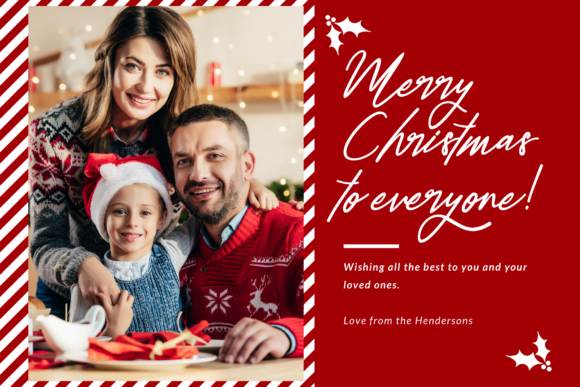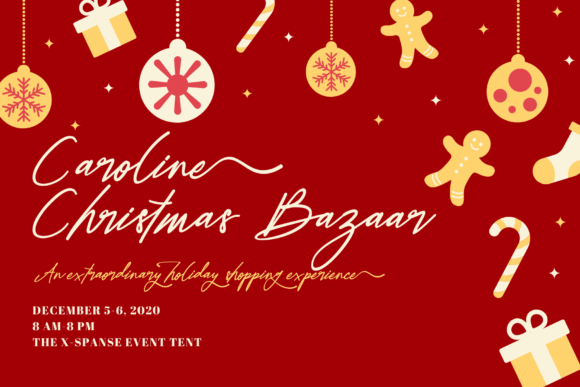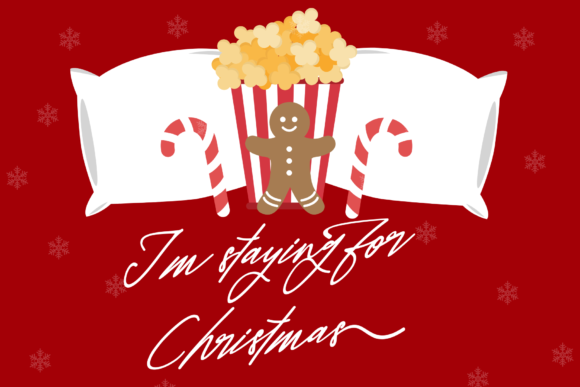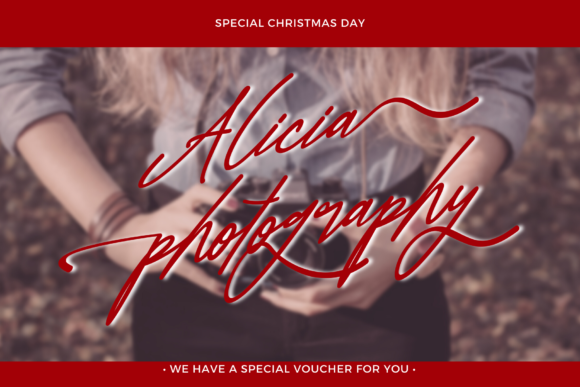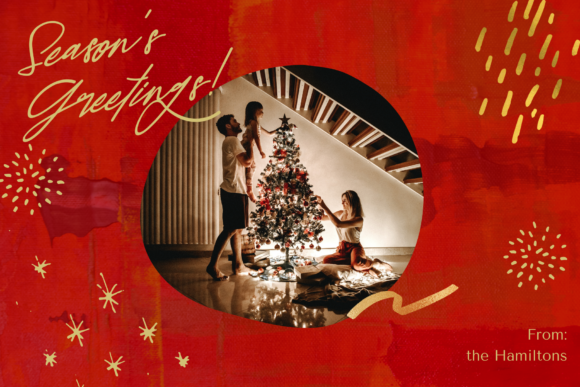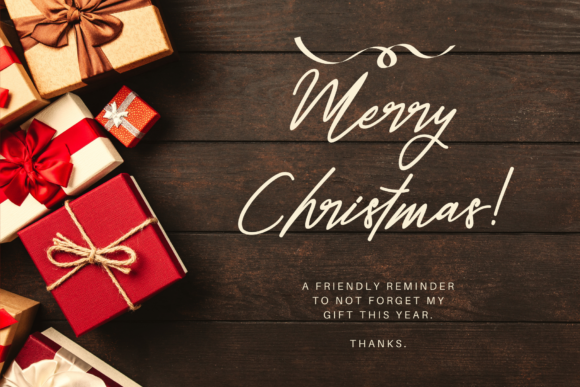
Introducing Christmas Life Font: A Timeless Handwritten Masterpiece
Are you on the hunt for a font that embodies the spirit of the holiday season? Look no further than Christmas Life Font, a dazzling and timeless handwritten font that’s perfect for creating eye-catching logos, branding, and quotes. In this article, we’ll dive into the features and benefits of Christmas Life Font, and explore why it’s a must-have for designers and crafters alike.
A Festive and Versatile Font
Christmas Life Font is a beautifully crafted handwritten font that’s infused with the magic of the holiday season. Its unique and elegant design makes it an excellent choice for a wide range of creative projects, from festive holiday cards and decorations to branding and advertising materials. Whether you’re a designer, crafter, or DIY enthusiast, Christmas Life Font is sure to add a touch of festive flair to your work.
One of the standout features of Christmas Life Font is its PUA (Private Use Area) encoding. This means that you can access all of the glyphs and swashes with ease, giving you unparalleled creative control over your designs. With PUA encoding, you can effortlessly navigate the font’s extensive character set, including alternative letters, ligatures, and ornaments. This feature makes it easy to create stunning text arrangements that are sure to impress.
Christmas Life Font is an exceptional choice for creating eye-catching logos, branding, and quotes. Its elegant and cursive design makes it perfect for businesses and individuals looking to add a touch of sophistication and elegance to their visual identity. Whether you’re launching a new brand or refreshing an existing one, Christmas Life Font is an excellent option to consider.
Why Designers and Crafters Love Christmas Life Font
- Unique and festive design: Christmas Life Font boasts a distinctive and captivating design that’s sure to stand out in any creative project.
- Highly versatile: This font is perfect for a wide range of applications, from logos and branding to holiday cards and decorations.
- PUA encoded for easy access: With PUA encoding, you can effortlessly access all of the font’s glyphs and swashes, making it easy to create stunning text arrangements.
- Timeless appeal: Unlike seasonal fonts that may quickly go out of style, Christmas Life Font has a timeless quality that ensures it will remain a stylish choice for years to come.
Tips for Using Christmas Life Font
- Experiment with different sizes and colors: Christmas Life Font looks great in a variety of sizes and colors, so don’t be afraid to experiment and find the perfect combination for your project.
- Pair with complementary fonts: For added visual interest, try pairing Christmas Life Font with complementary fonts that share similar design elements.
- Make use of glyphs and swashes: With PUA encoding, you can easily access all of the font’s glyphs and swashes. Take advantage of these extra characters to add visual interest and personality to your designs.
Christmas Life Font is a truly exceptional handwritten font that’s perfect for designers, crafters, and DIY enthusiasts looking to add a touch of festive flair to their creative projects. With its unique and elegant design, PUA encoding, and timeless appeal, this font is sure to become a favorite in your collection. Whether you’re creating logos, branding, or holiday cards, Christmas Life Font is an excellent choice that’s sure to impress.